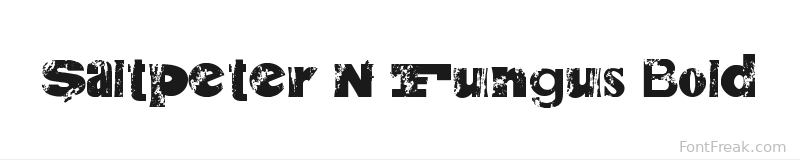
Saltpeter N Fungus Bold
About Saltpeter N Fungus Bold
Saltpeter N Fungus Bold is a distinctive display font designed by Galdino Otten Fonts, characterized by its unique, rugged aesthetic that combines a sense of playfulness with a bold presence. This font belongs to the decorative category, making it an excellent choice for projects that require a touch of creativity and flair. The stroke weight varies, with thicker accents that add emphasis and a textured appearance reminiscent of natural elements, which contributes to its organic feel. The contrast in its design is engaging, while the spacing remains balanced, ensuring clarity even in larger text.
Ideal for a variety of creative applications, Saltpeter N Fungus Bold shines in settings such as restaurant menus, where its whimsical style can evoke a casual dining atmosphere. It also works beautifully for movie posters, particularly in the adventure or horror genres, where a bold statement is essential. Additionally, this font is suitable for graphic design projects like promotional materials, business cards, and social media graphics, capturing attention with its unique character. Small business owners and content creators will find it especially appealing for branding efforts, as it helps to convey a memorable identity.